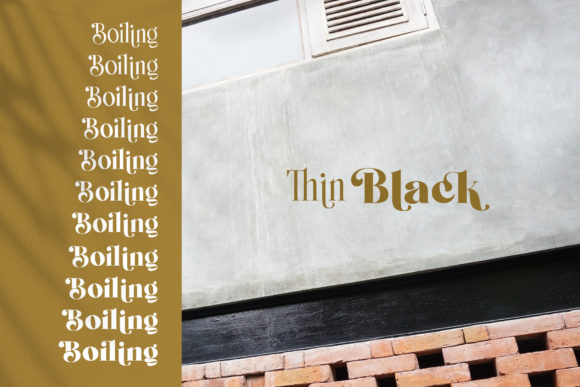
Introducing Boiling Font: The Ultimate Serif Font for Versatile Designs
In the world of typography, a font can make all the difference in the aesthetic and effectiveness of a design. For those seeking a bold, yet down-to-earth typeface, Boiling Font is an exceptional choice. This meticulously crafted serif font family is designed to captivate audiences with its casual charm, readability, and versatility. Whether you’re working on a bustling background or a standalone headline, Boiling Font is poised to elevate your design to new heights.
Key Features of Boiling Font
- Bold Serif Design: Boiling Font boasts a bold serif design that commands attention without overwhelming the senses. Its serifs add a touch of sophistication, making it suitable for a wide range of applications.
- Casual Charm: The font’s casual demeanor lends a friendly, approachable feel to any design. This makes Boiling Font perfect for brands aiming to connect with their audience on a more personal level.
- Readability: One of the standout features of Boiling Font is its exceptional readability. Even at smaller sizes, it remains clear and legible, ensuring your message is always conveyed effectively.
- Versatility: Boiling Font’s true strength lies in its versatility. It can seamlessly transition from use in body text to headlines, making it a valuable asset for any designer or brand.
Design Applications for Boiling Font
Boiling Font’s adaptability makes it an excellent choice for a multitude of design projects. Here are some of the areas where it truly shines:
- Headlines and Titles: Use Boiling Font to create eye-catching headlines that draw readers in. Its bold nature ensures your titles won’t go unnoticed.
- Body Text: Despite its bold appearance, Boiling Font maintains readability even in smaller sizes, making it suitable for body text where clarity is paramount.
- Branding and Logos: For brands looking to make a statement, Boiling Font can be a part of logo designs or brand identity materials, offering a unique and memorable look.
- Marketing Materials: From brochures to flyers, and posters to digital ads, Boiling Font can enhance the visual appeal of your marketing materials, making them more engaging.
- Web Design: Boiling Font is optimized for digital use, making it an excellent choice for website headers, blog posts, and more.
Tips for Effective Use of Boiling Font
To maximize the impact of Boiling Font in your designs, consider the following tips:
- Mix and Match: Don’t be afraid to experiment with different weights and sizes of Boiling Font to create visual hierarchy and interest.
- Contrast is Key: When using Boiling Font on busy backgrounds, ensure there’s sufficient contrast to maintain readability.
- Keep it Simple: While Boiling Font is bold, overusing it can be overwhelming. Balance it with simpler elements to create a harmonious design.
- Consider Line Spacing: Adequate line spacing can enhance readability, especially when using Boiling Font for longer texts.
Boiling Font is more than just a typeface; it’s a design companion that can elevate your projects with its bold yet charming presence. Its blend of readability, versatility, and casual charm makes it an invaluable tool for designers and brands looking to make a lasting impression. Whether you’re crafting a headline, designing a logo, or creating comprehensive marketing materials, Boiling Font is sure to deliver results that exceed your expectations.